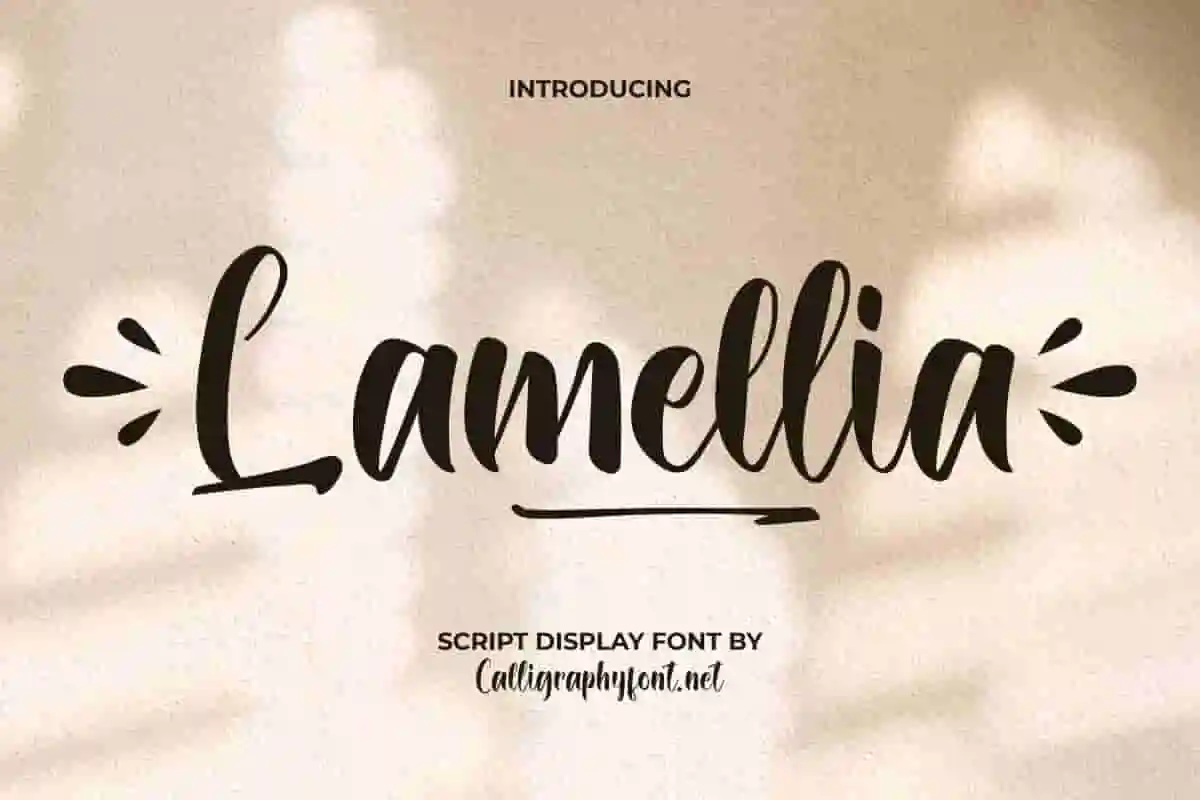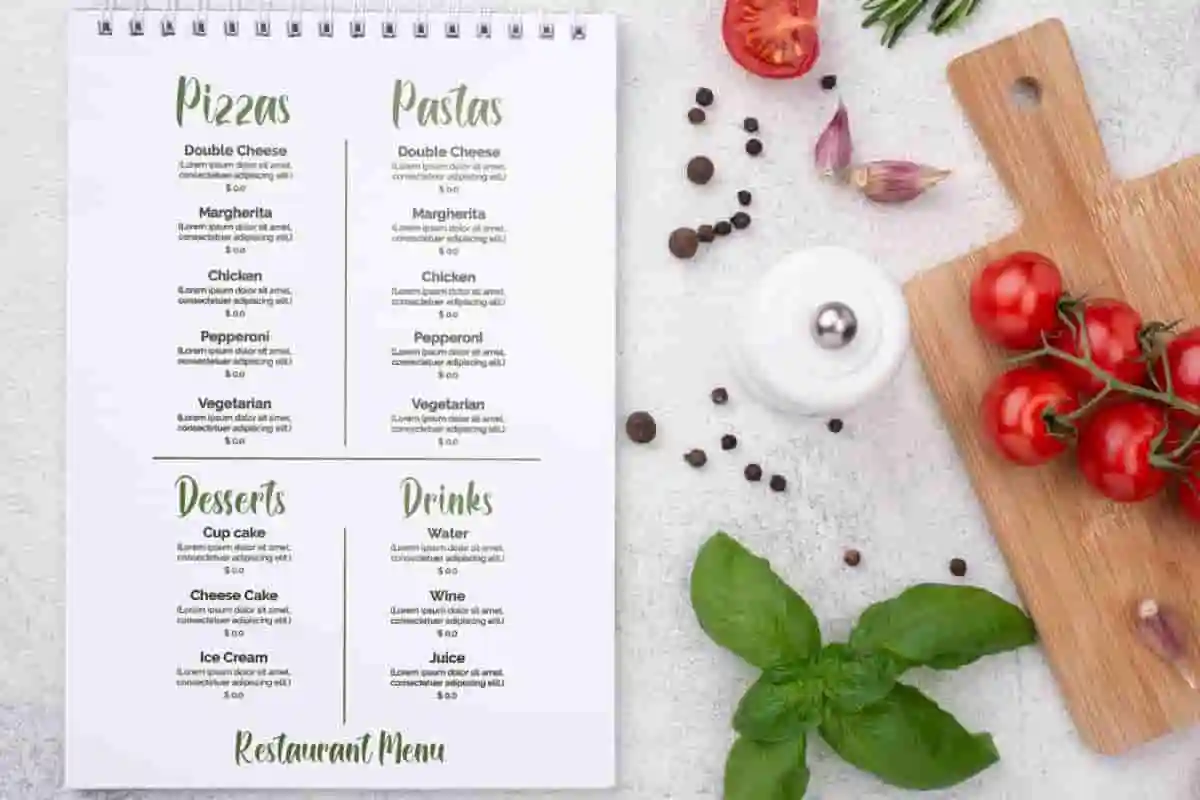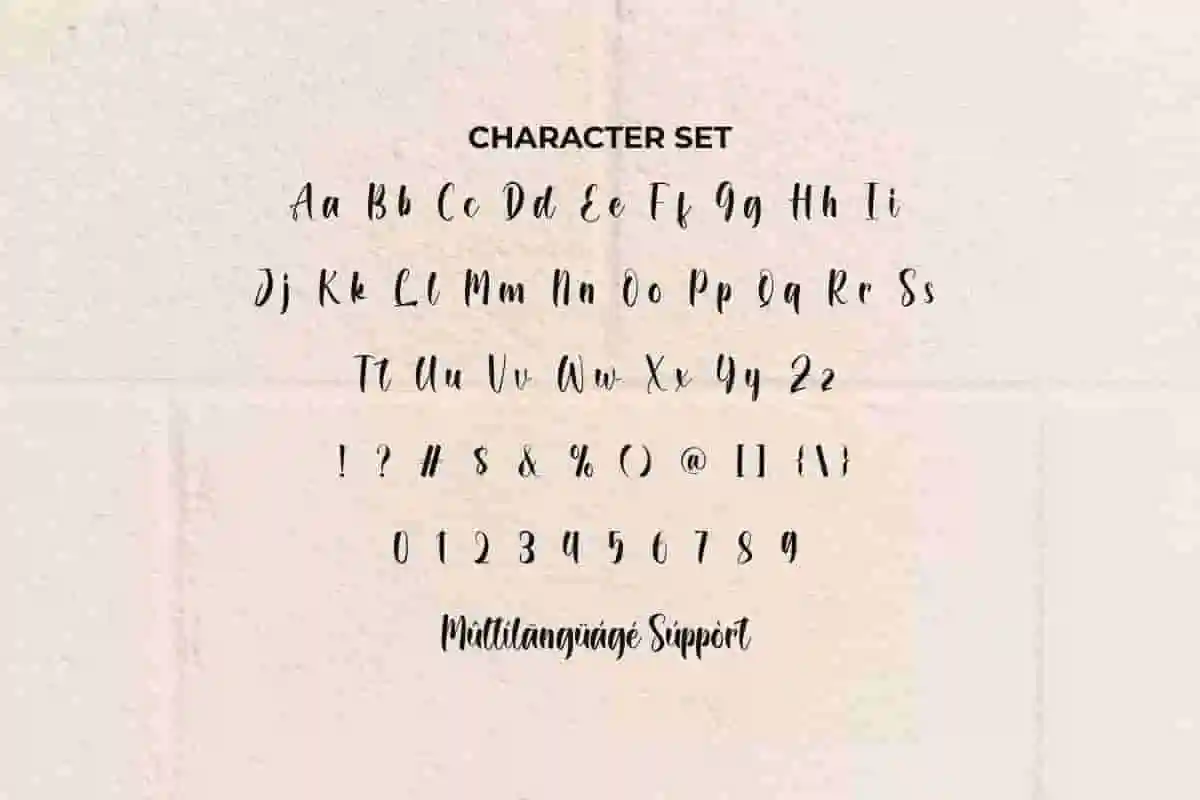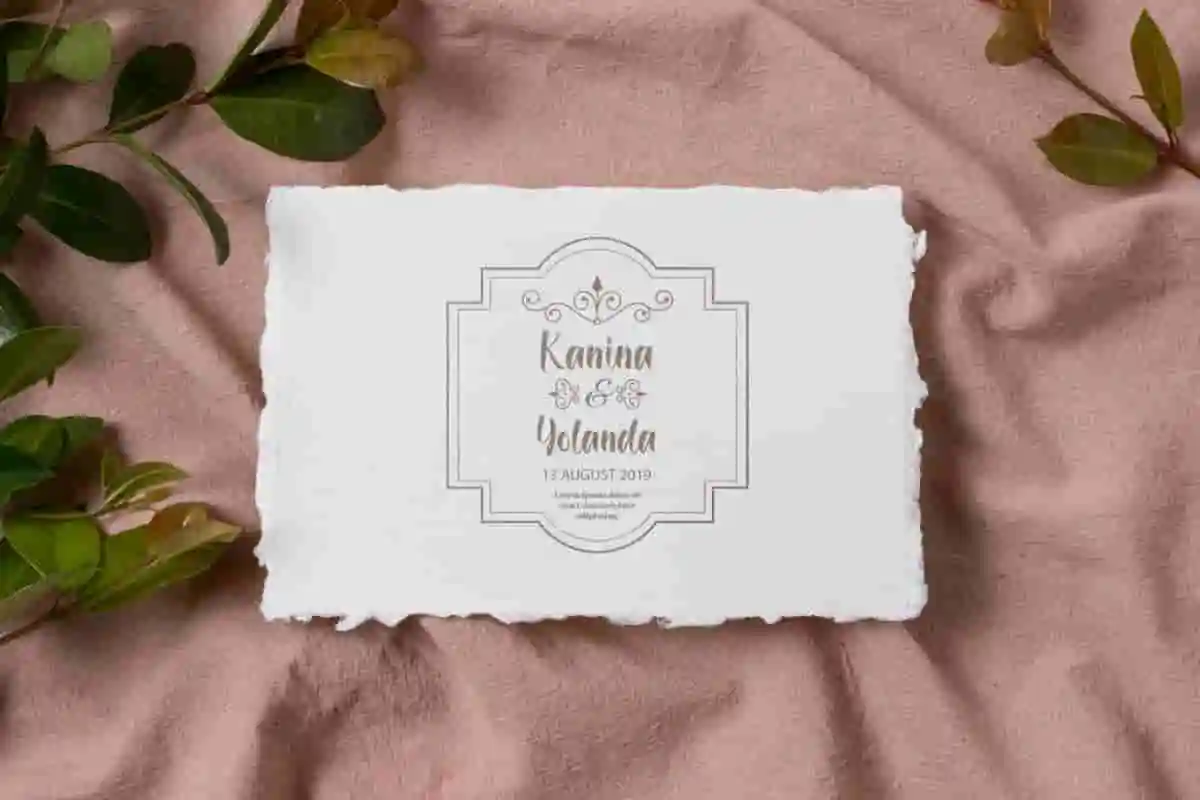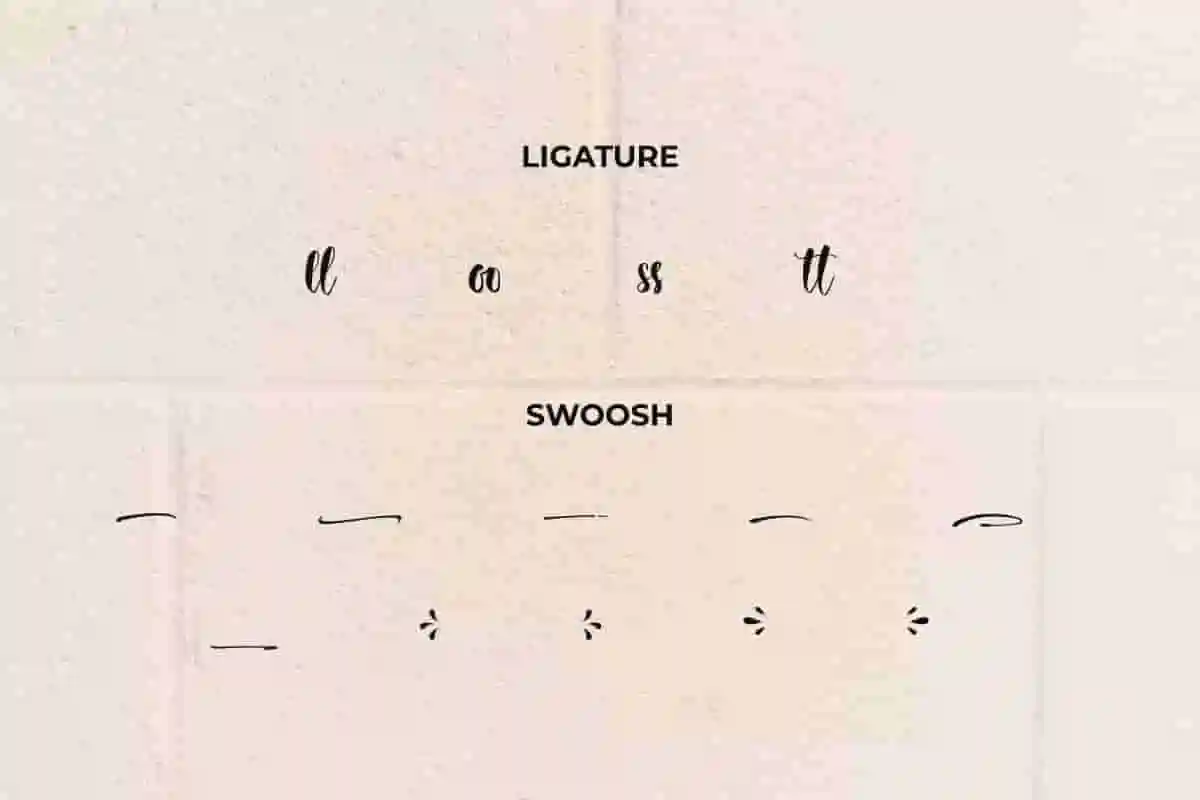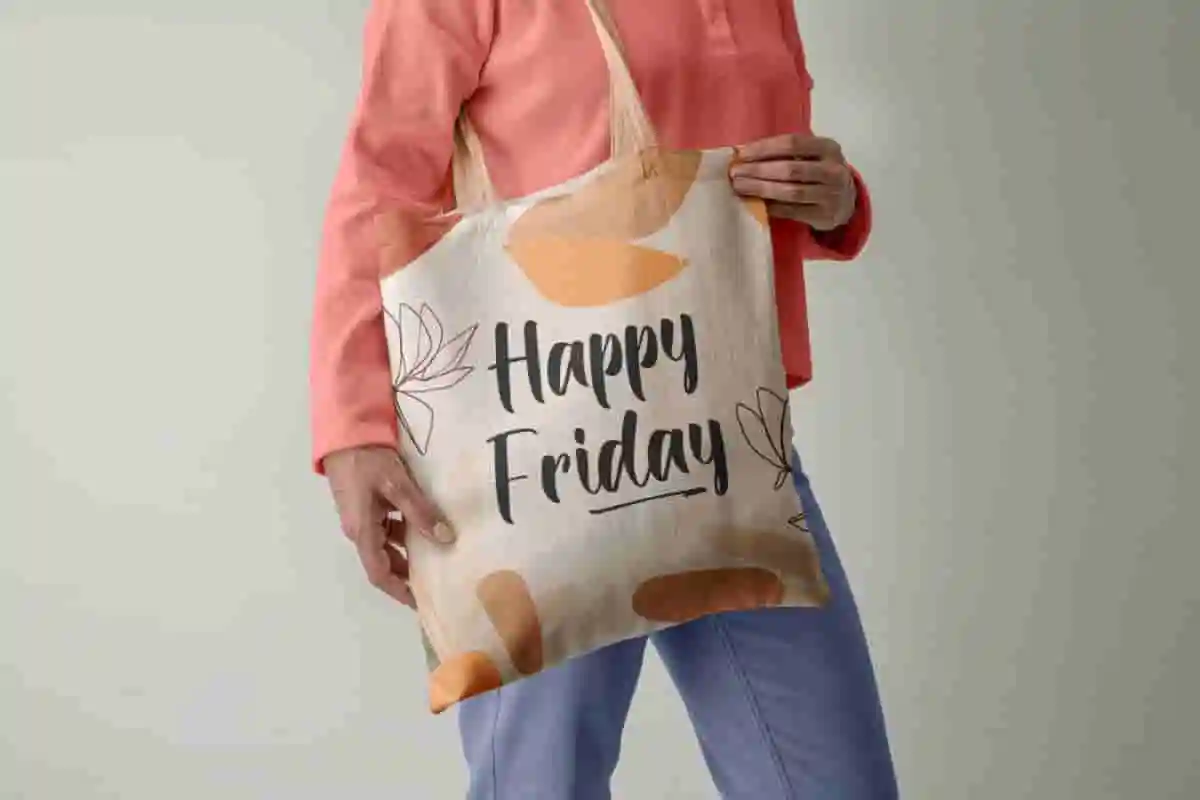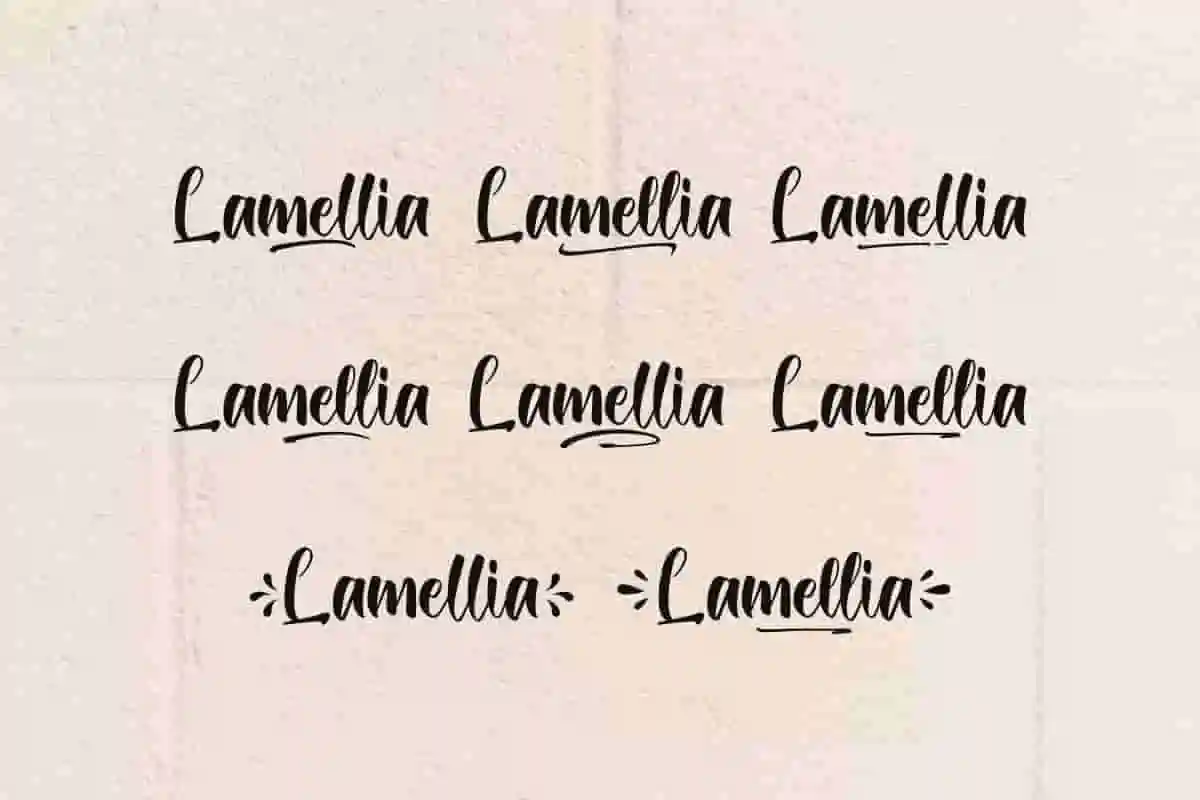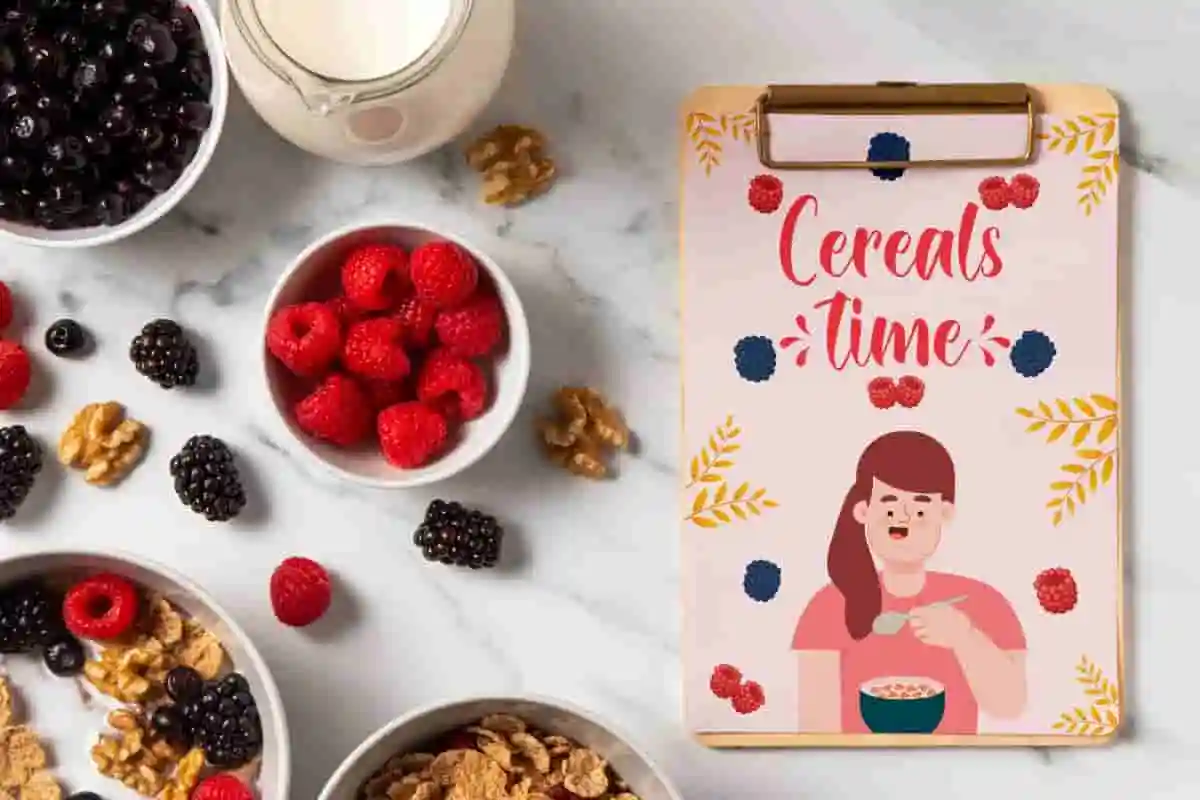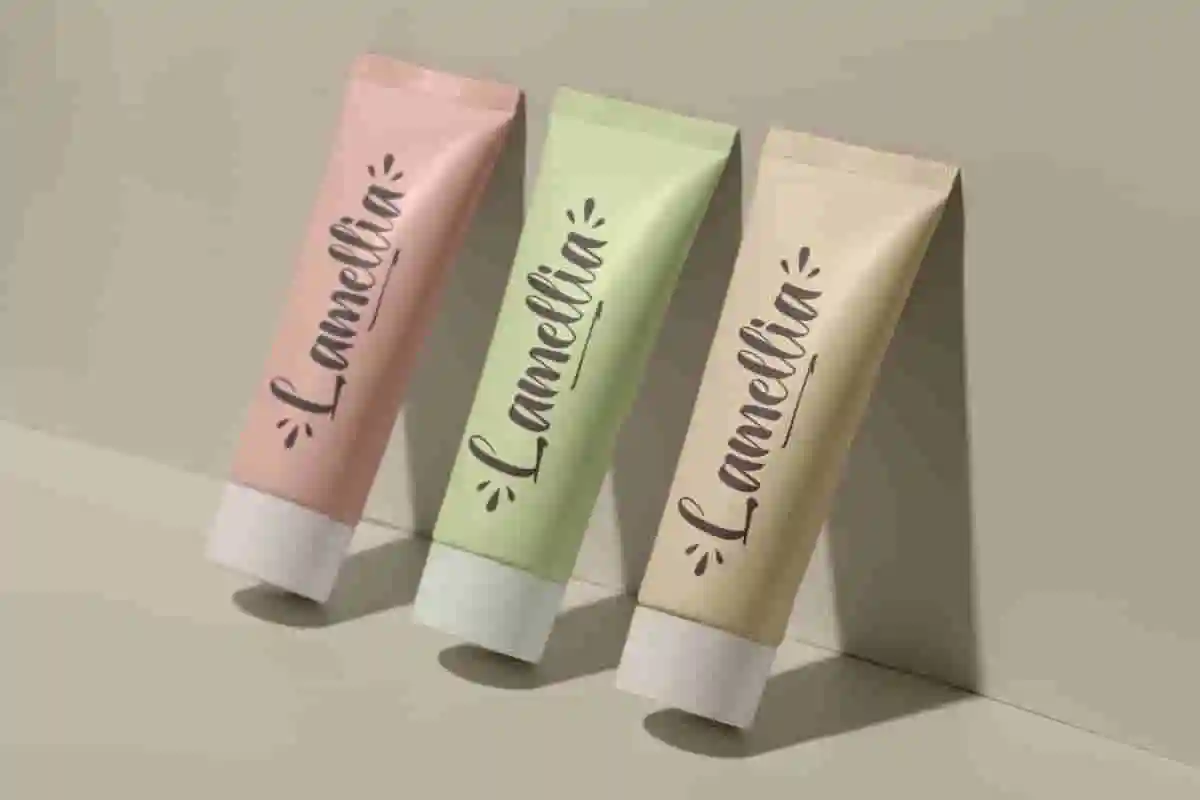
Lamellia Display Font
Lamellia Font is a playful bold lines script calligraphic font that would be great for event organizer, packaging design, poster, restaurant business, and anything that requires a cheerful stylish look.
Lamellia Font is a playful script display font, created by CalligraphyFonts. This font brings a cheerful vibe to your designs that will be perfect for any creative project, such as billboard, brand logo, header, menu sheet, packaging design, poster, screen print, stationery, sticker, and much more.
Bring your creative projects to life with Lamellia Display Font, a modern typeface designed to captivate attention and deliver bold impact. Perfectly crafted for designers, brands, and creatives, Lamellia is more than just a font – it’s a design statement that blends style, readability, and personality.
Lamellia Display Font features clean lines, unique letterforms, and a striking visual presence that makes it an excellent choice for logos, posters, magazine headlines, packaging, and branding projects. Whether you’re designing for digital platforms or print, this font ensures your message stands out and leaves a lasting impression.
If you’re a designer who values clarity and aesthetics, Lamellia Display Font is the perfect addition to your font library. It’s crafted to maintain readability while delivering a sophisticated edge, making it ideal for professional branding as well as personal creative projects.
Lamellia Display Font has bold and stylish font it brings perfection in form and legibility. It will be great for any industry, including : advertisement, beauty product, boutique, cereal brand, fashion, handicraft, interior design, printing, publishing, restaurant, wedding organizer, and anything that needs a pretty script touch.
Lamellia Display Font comes with a full set of Uppercase and Lowercase Basic Characters, Number, a large range of Punctuation and Symbol. Also equipped with additional characters Ligature and Swoosh that will decorate this font along with multilingual character supports. Ready to use both on Windows machine or Mac with simple installations. It’s tested to work well in the Adobe Apps (Illustrator, Adobe InDesign, Adobe Photoshop) CorelDraw, and others. PUA Encode Characters means you can access all the characters easily – Fully accessible without additional design software.